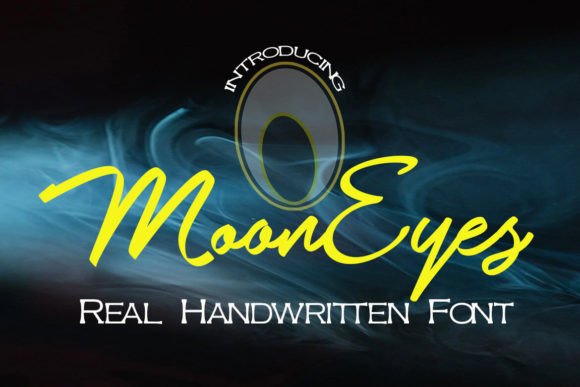
Behold! Introducing Mooneyes Font, the captivating script font that will inject your designs with an enchanting touch of uniqueness. Crafted with meticulous attention to detail by the skilled hands of WinType, Mooneyes Font is more than just a collection of letters; it's an artistic masterpiece that will transform your creative endeavors into captivating works of art.
Step into the world of Mooneyes Font and let your imagination roam free. Picture your brand logo adorned with its elegant swirls, your invitations graced with its timeless beauty, or your wedding designs imbued with a touch of sophistication. This font is a versatile chameleon, adapting seamlessly to a myriad of design projects, from eye-catching posters to enchanting social media posts.
Unleash the power of Mooneyes Font and watch as your designs come alive with a symphony of visual delight. Its delicate curves and expressive strokes will paint a picture of elegance and charm, leaving your audience spellbound. Dive into the depths of Mooneyes Font's character set and discover a treasure trove of ligatures and glyphs, waiting to be unleashed upon your creative projects.
With Mooneyes Font, the boundaries of design are limitless. Bask in the freedom to express yourself fully, knowing that this font will faithfully translate your vision into a visual masterpiece. Whether you're a seasoned designer or just starting your creative journey, Mooneyes Font will be your trusted companion, guiding you toward design excellence.
Don't let mediocrity hold you back. Choose Mooneyes Font and embark on a design adventure that will captivate and inspire. Embrace the beauty of this script font and unlock the true potential of your creativity. The time is now to make your designs shine brighter than ever before.